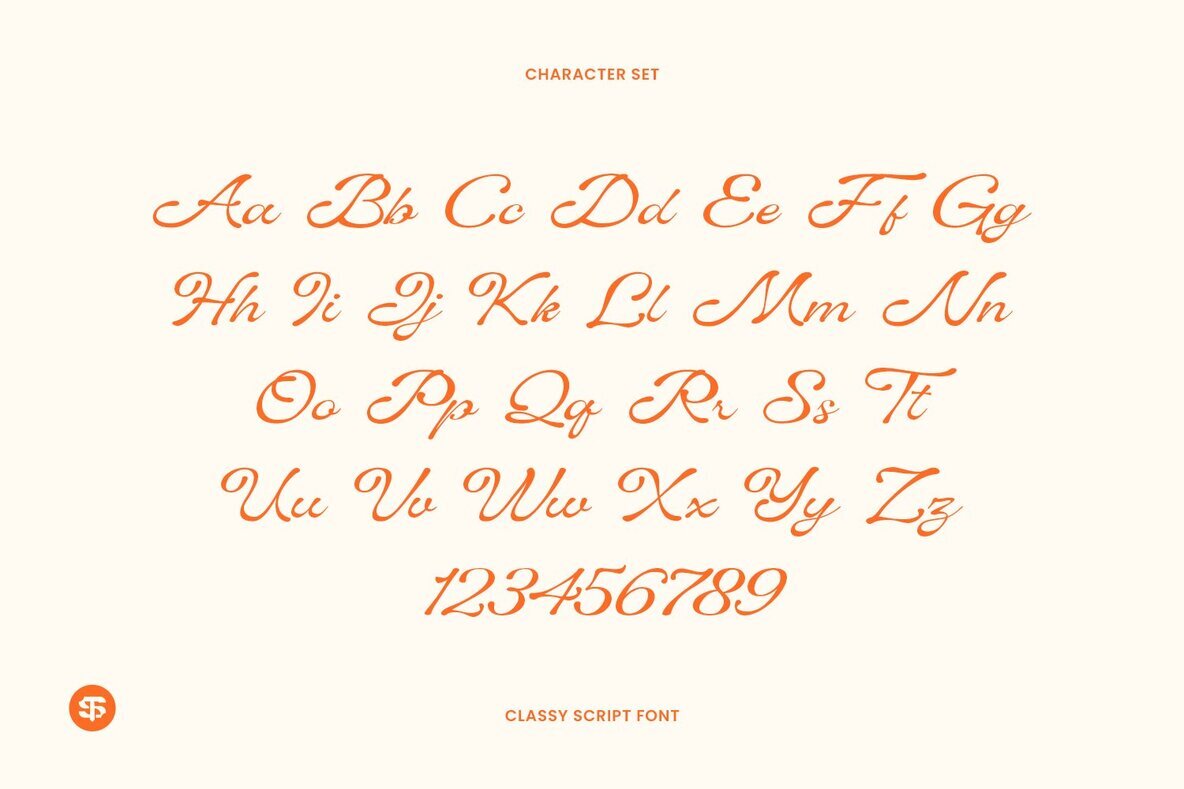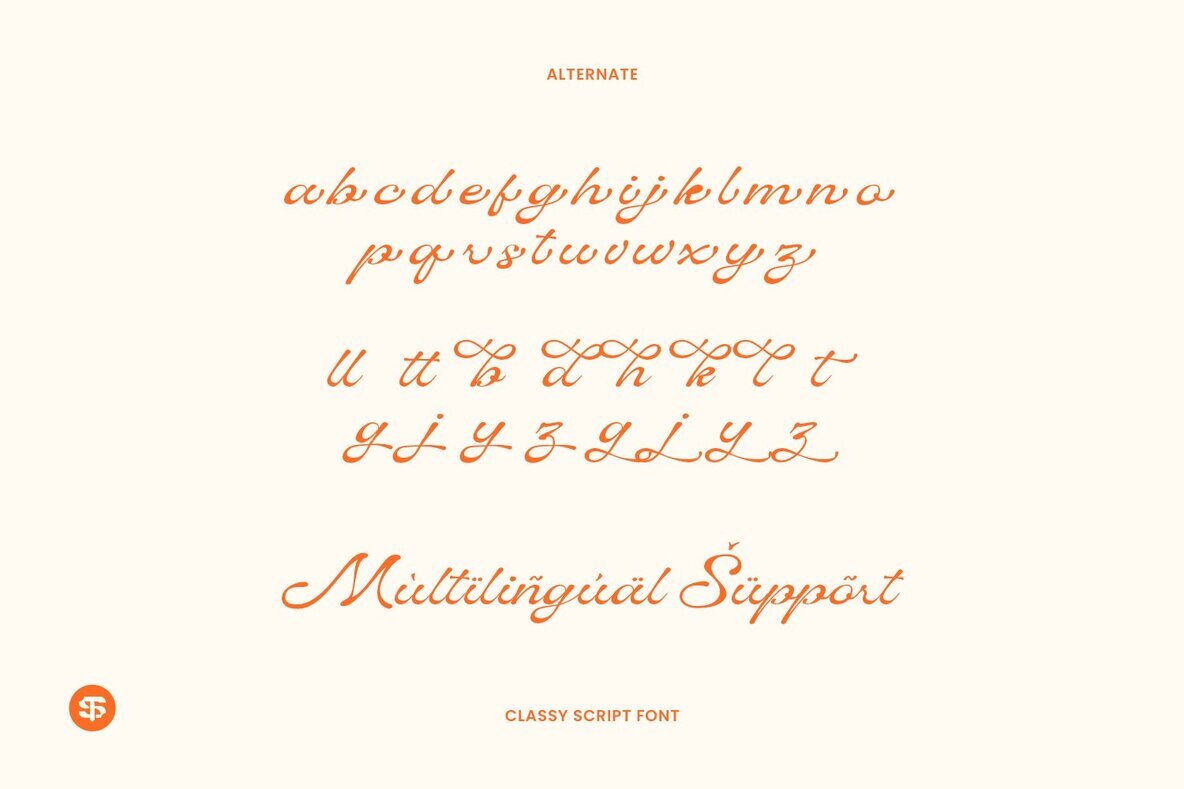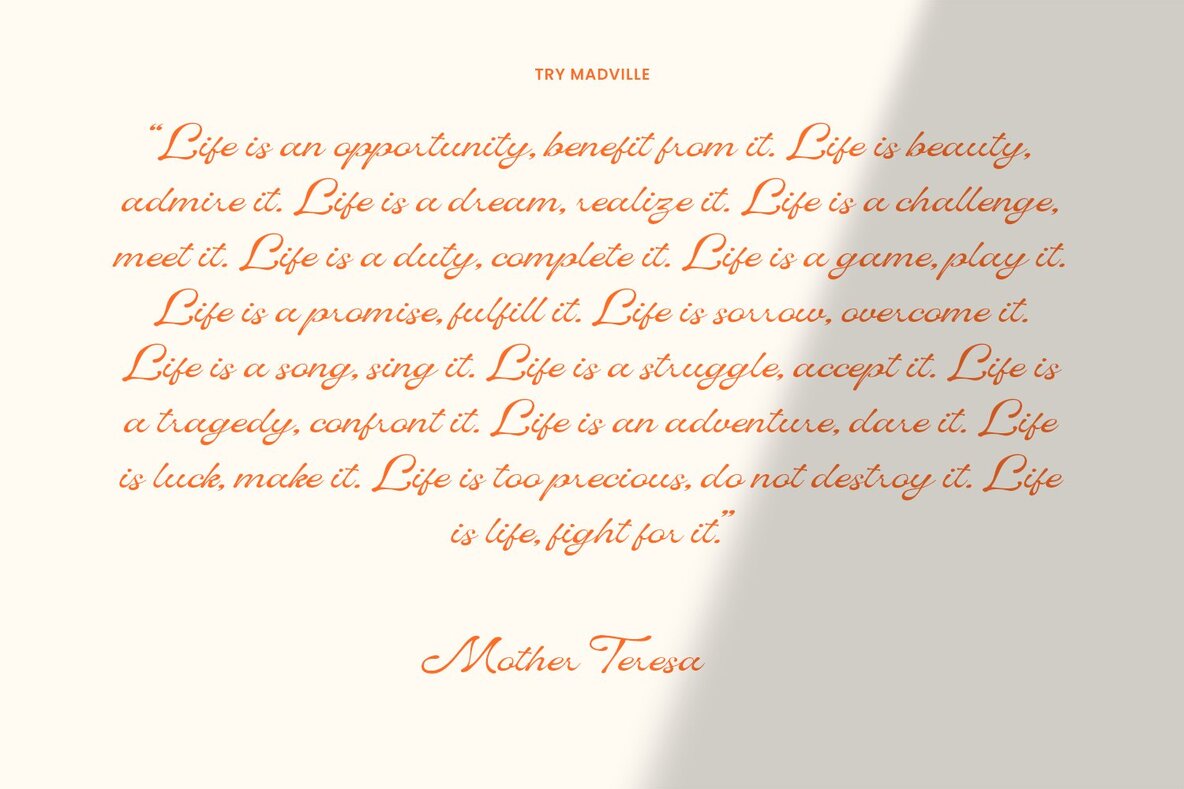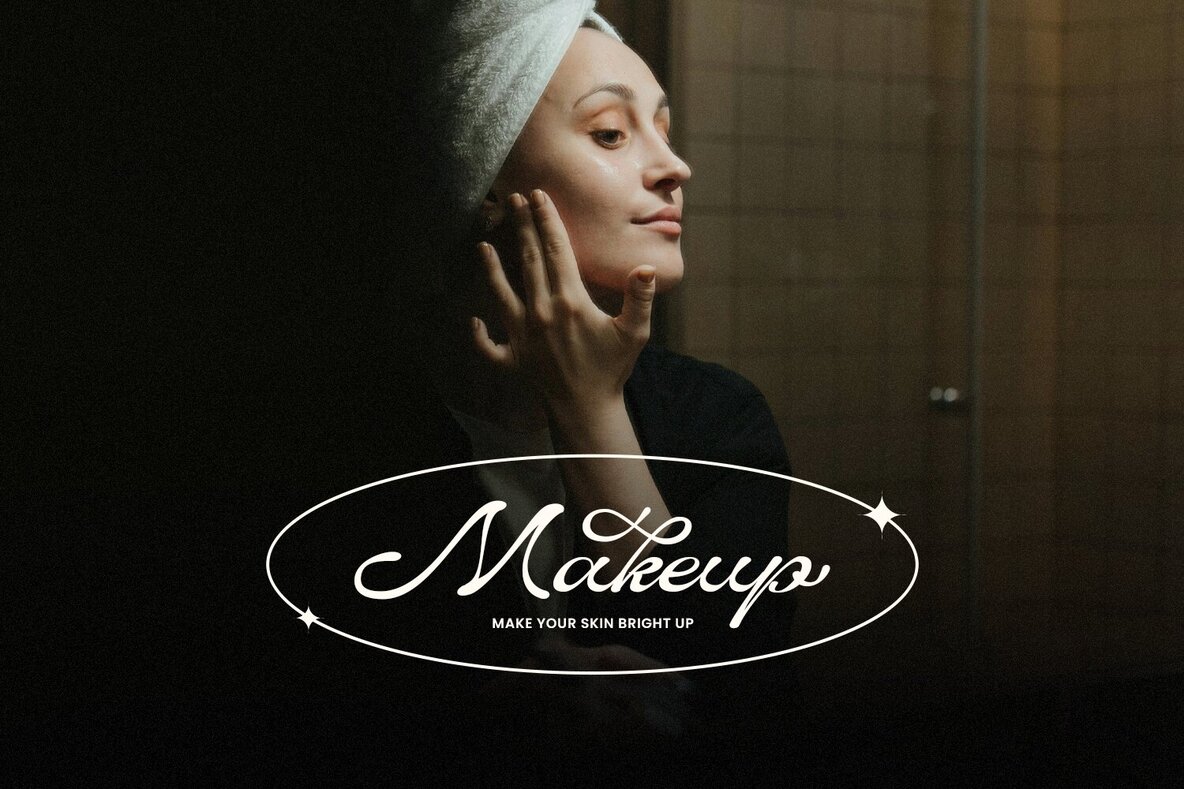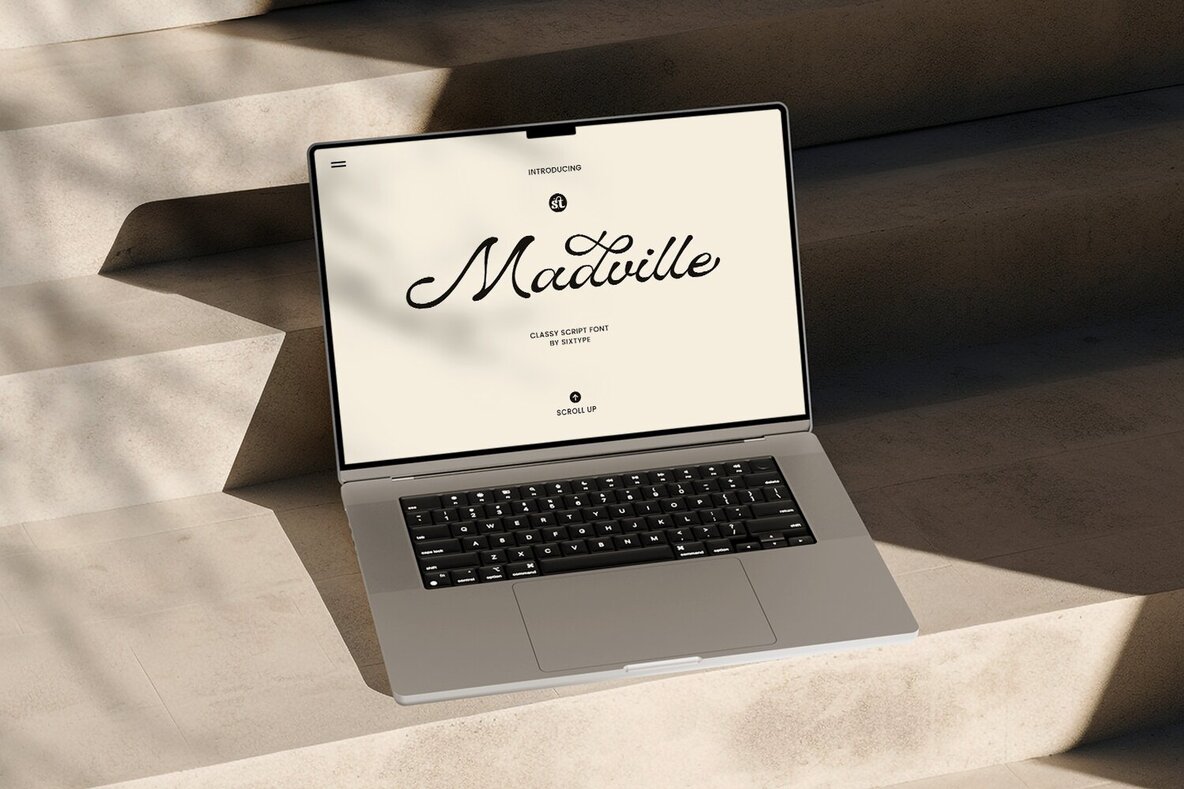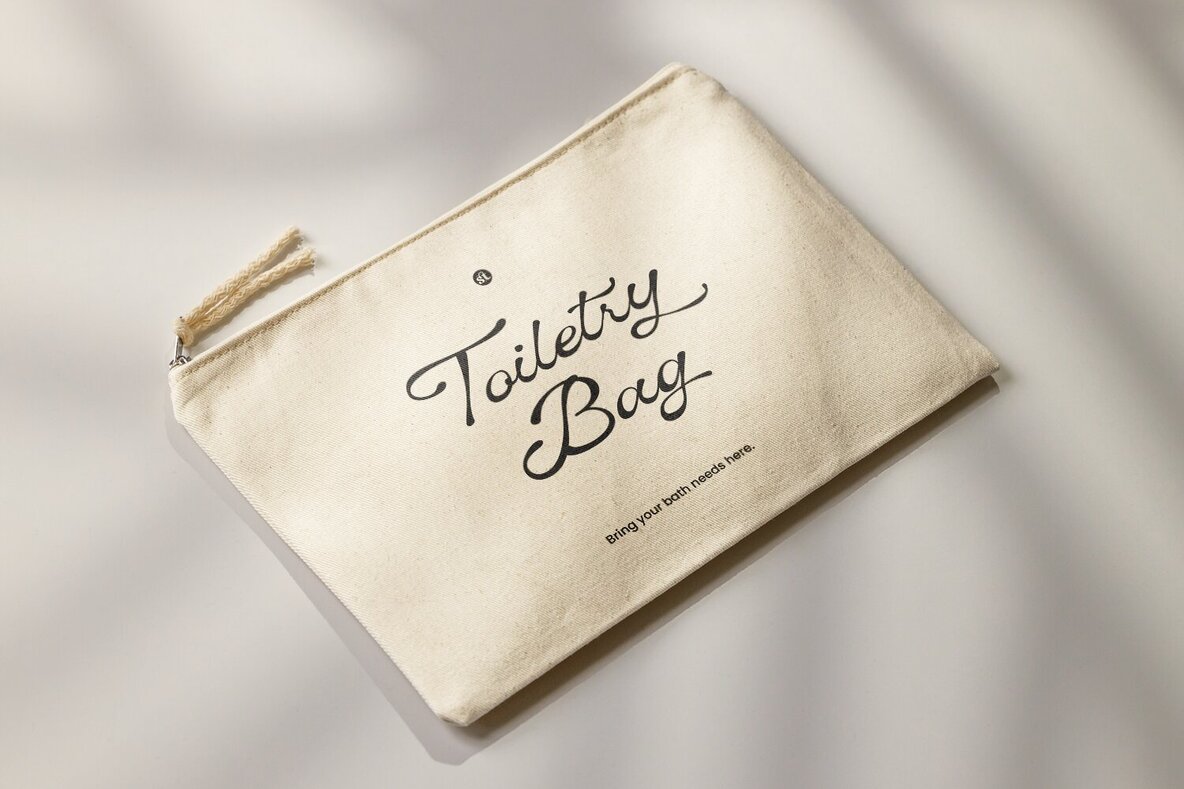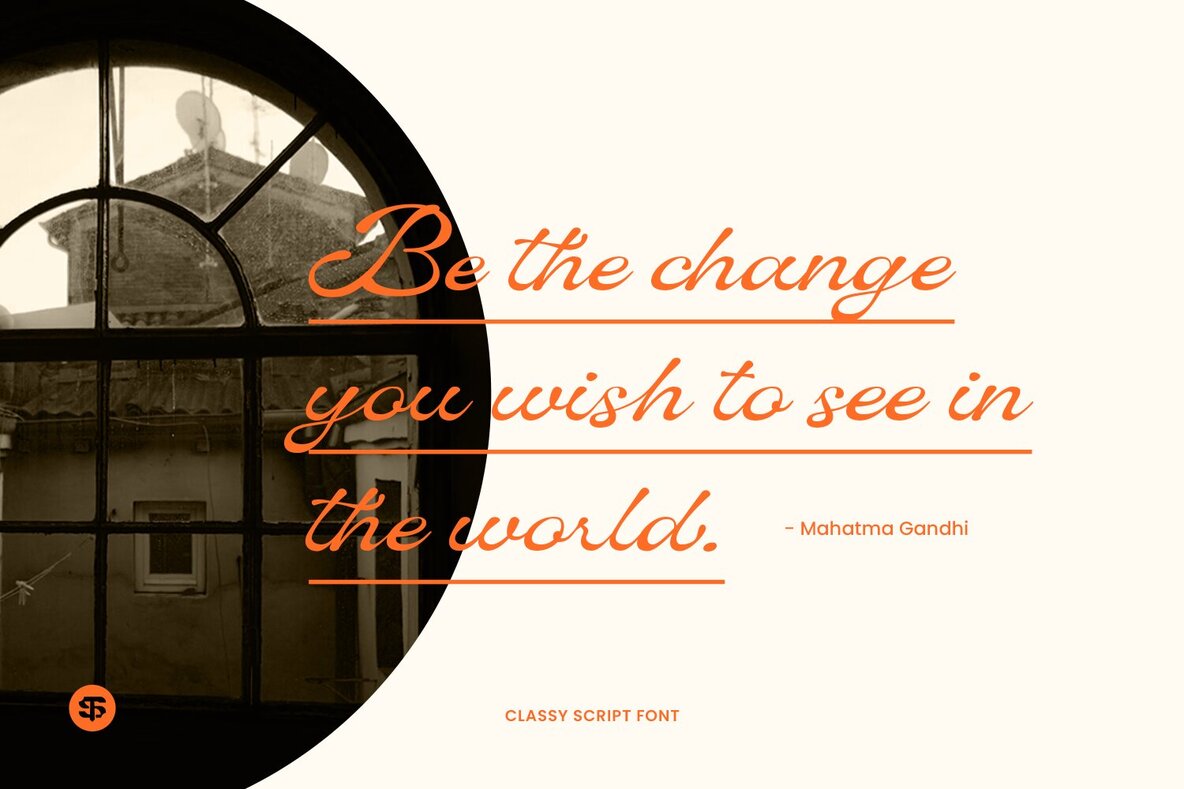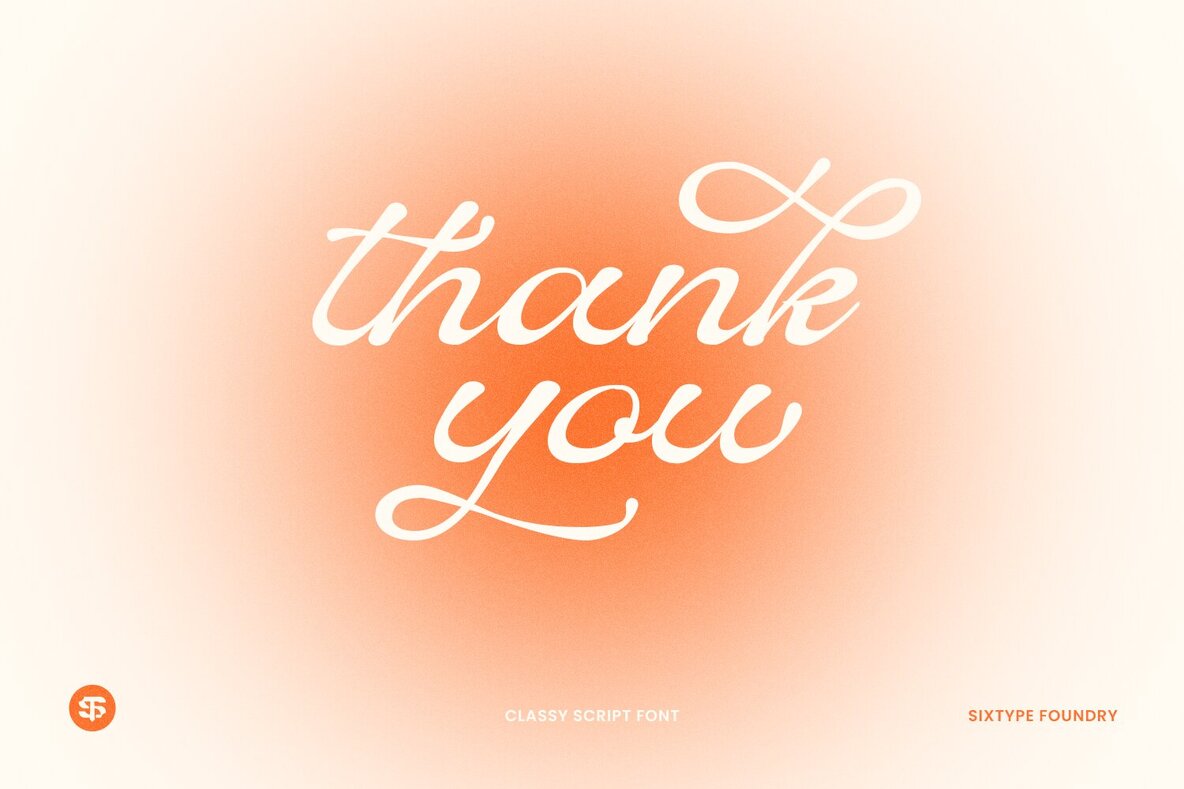
Madville Font
Madville Regular
This script typeface features a cursive and calligraphic style, providing an elegant and sophisticated look suitable for formal invitations and artistic projects. It exhibits flowing, ornamental characters that mimic the finesse of hand lettering, capturing a vintage charm with a modern touch that can add a personal and refined feel to any design.